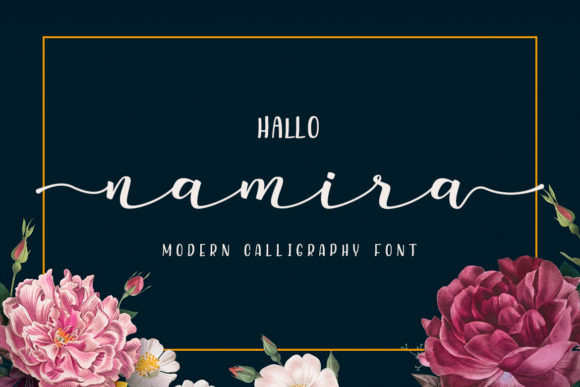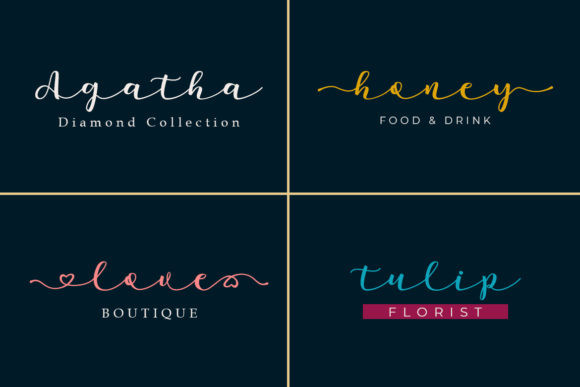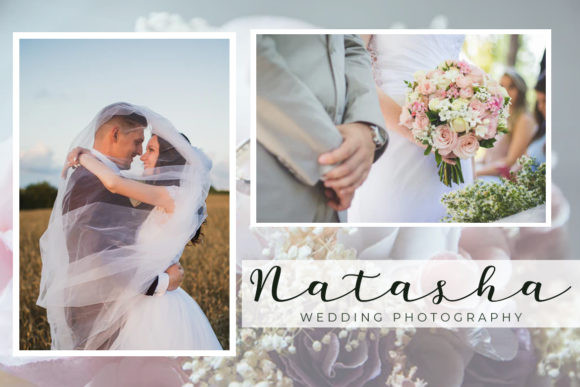
Namira Font
Namira is a modern and relaxed handwritten font. This font is PUA encoded which means you can access all of the glyphs and swashes with ease! It features a varying baseline, smooth lines, gorgeous glyphs and stunning alternates. If you are looking to create timeless designs, Namira is the right choice!